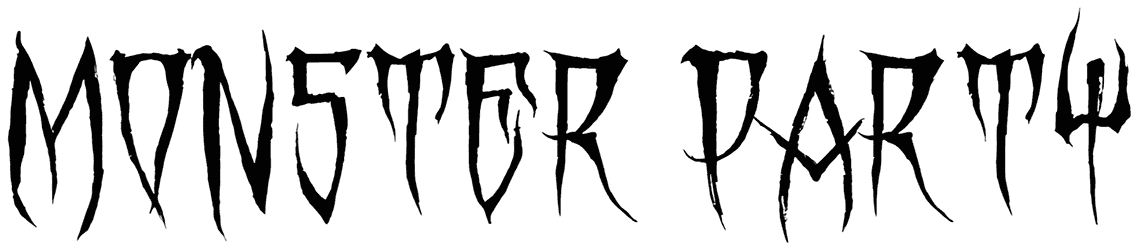
Monster Party Font
Monster Party would be a vivid example of adding a bit of softness and creativity to a casual horror font. This typeface would suit your creative ideas, such as posters, logos, greeting cards, business cards, or flyers, and has the true potential to add a dramatic touch to them.
If creating a sense of dynamic, buzz, dreaminess, and jauntiness really matters to you, it’s better to neglect the lack of numbers and use this all-caps holiday font.